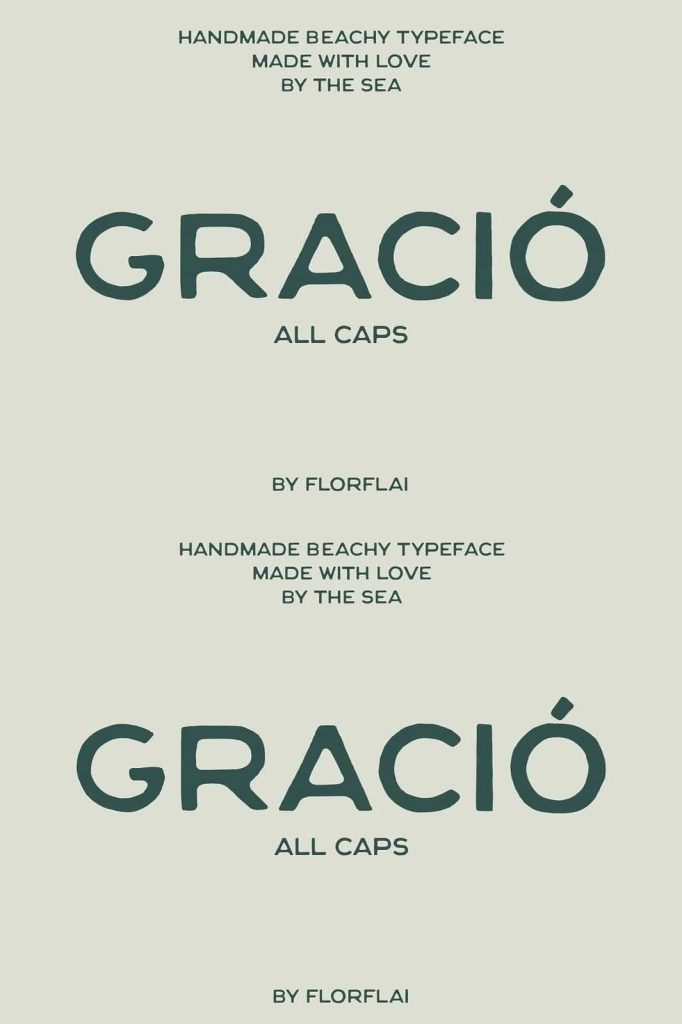
Gració Handmade Sans Serif Font – Inspired by Coastal Living and Seaside Creativity
Gració is a handmade sans serif font that embodies the relaxed, sun-soaked atmosphere of Ibiza’s coastline. Inspired by the natural beauty of Cala Gració, this typeface blends the easy rhythm of seaside living with organic design elements that feel both authentic and creative. Each character reflects the effortless flow of waves, the warmth of sand, and the casual elegance of coastal artistry. Designed for creatives who seek to capture a sense of calm and inspiration, Gració offers a perfect balance of rustic charm and modern simplicity.
A Handmade Sans Serif with a Coastal Soul
Gració draws its essence from the natural environment of Ibiza’s shores—its shimmering waters, soft breezes, and vibrant coastal life. The handcrafted strokes and subtle imperfections of this font echo the organic textures of nature, making it feel human, grounded, and inviting. Unlike rigid geometric typefaces, Gració introduces a sense of movement and spontaneity that mirrors the fluidity of waves gently rolling onto the beach.
This font brings a natural, relaxed character to your design work. Its simple yet expressive structure ensures versatility across multiple uses, while the handmade touch keeps your designs approachable and unique. Whether used in branding, packaging, or editorial design, Gració transforms every word into a visual reflection of seaside tranquility.
Inspired by Cala Gració and the Art of Seaside Living
Gració is more than a font—it’s an experience. Born from the spirit of Cala Gració, one of Ibiza’s most serene coastal spots, the typeface captures the feeling of days spent by the sea—relaxed, sunlit, and carefree. The design carries the essence of artistic freedom, reminiscent of handwritten signage in beach cafés or journals filled with creative sketches drawn beside the waves.
Each letter embodies the relaxed rhythm of coastal life. The rounded shapes and uneven strokes bring a sense of organic warmth, while the spacing and balance ensure clean readability. Gració allows you to express creativity without losing structure—making it a perfect fit for modern brands that value authenticity and human connection.
Perfect for Branding, Editorials, and Creative Design
Gració Handmade Sans Serif Font works beautifully in projects that embrace creativity and emotion. Its organic charm makes it ideal for branding identities, editorial layouts, social media graphics, and packaging designs that want to convey a lifestyle of freedom, warmth, and sophistication. It’s also a great choice for travel, wellness, and lifestyle brands that celebrate nature and simplicity.
Because of its legibility and smooth flow, Gració performs well in both digital and print environments. Use it for headlines that make an impression, or for body text that feels natural and human. Its versatility allows designers to create cohesive visual stories that resonate emotionally with the audience.
Why Choose Gració for Your Next Design Project
- Coastal Inspiration: Reflects the essence of Ibiza’s Cala Gració and its relaxed seaside charm.
- Handmade Character: Features organic strokes and subtle imperfections for a natural look.
- Versatile Usage: Ideal for branding, editorial, packaging, and lifestyle projects.
- Readable and Stylish: Balances handcrafted detail with clean modern readability.
- Authentic Vibe: Brings warmth, creativity, and personality to any design.
Capture the Beauty of Seaside Simplicity
With Gració, you can bring the serenity of coastal living into your designs. It’s a font that speaks softly yet confidently—calm but full of character. The handmade details create an authentic connection between your brand and your audience, while the balanced structure keeps your work professional and polished. Every curve, stroke, and contour feels inspired by moments spent near the sea, where creativity flows as freely as the tide.
Gració Handmade Sans Serif Font is a tribute to the art of coastal living—simple, natural, and effortlessly beautiful. It combines the free spirit of Ibiza with thoughtful craftsmanship, offering a typeface that feels human, artistic, and timeless. Perfect for designers seeking authenticity and warmth, Gració transforms ordinary text into an expression of seaside elegance and creativity. Let Gració bring the peaceful charm of Cala Gració to your next design project and infuse your work with the soul of the sea.